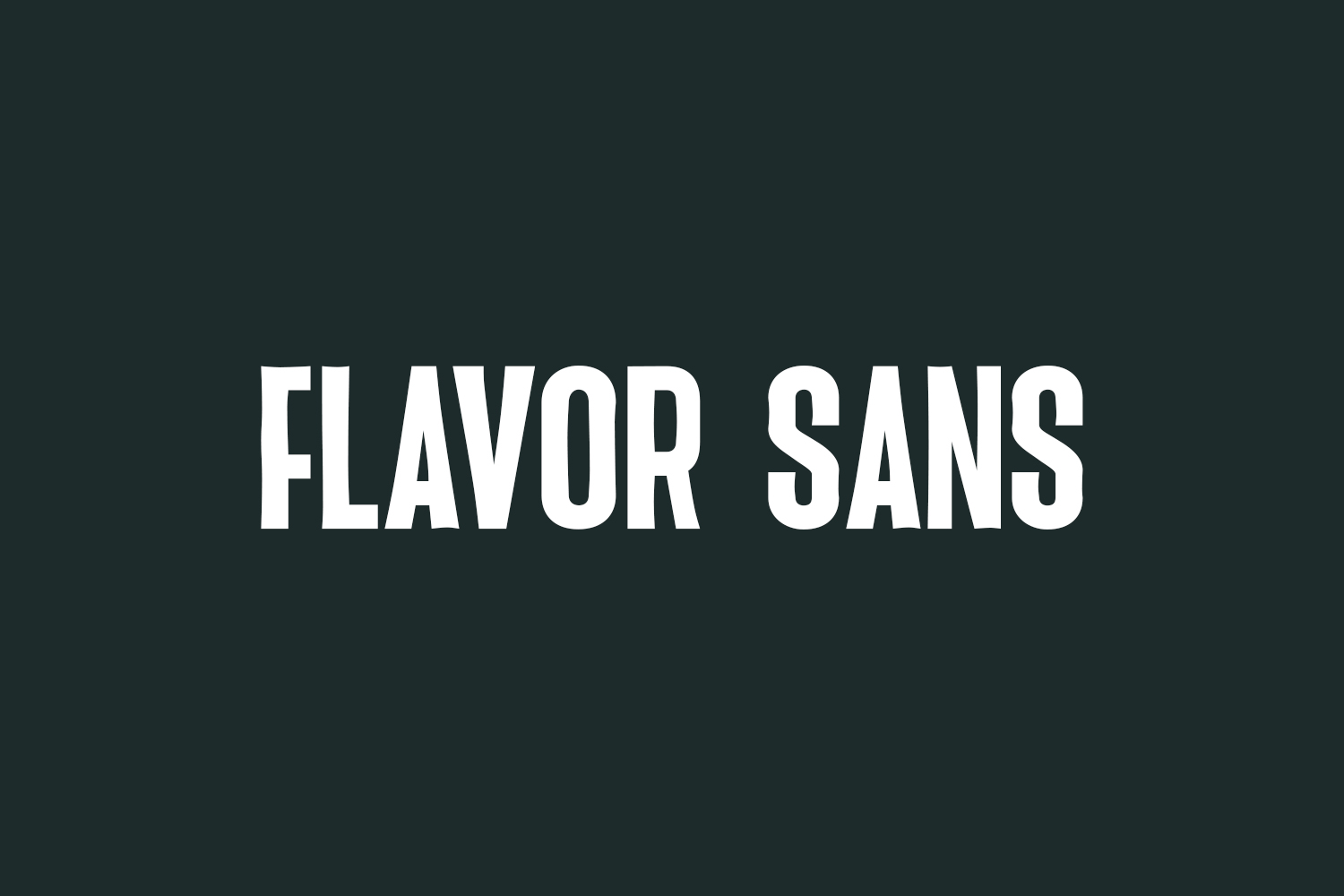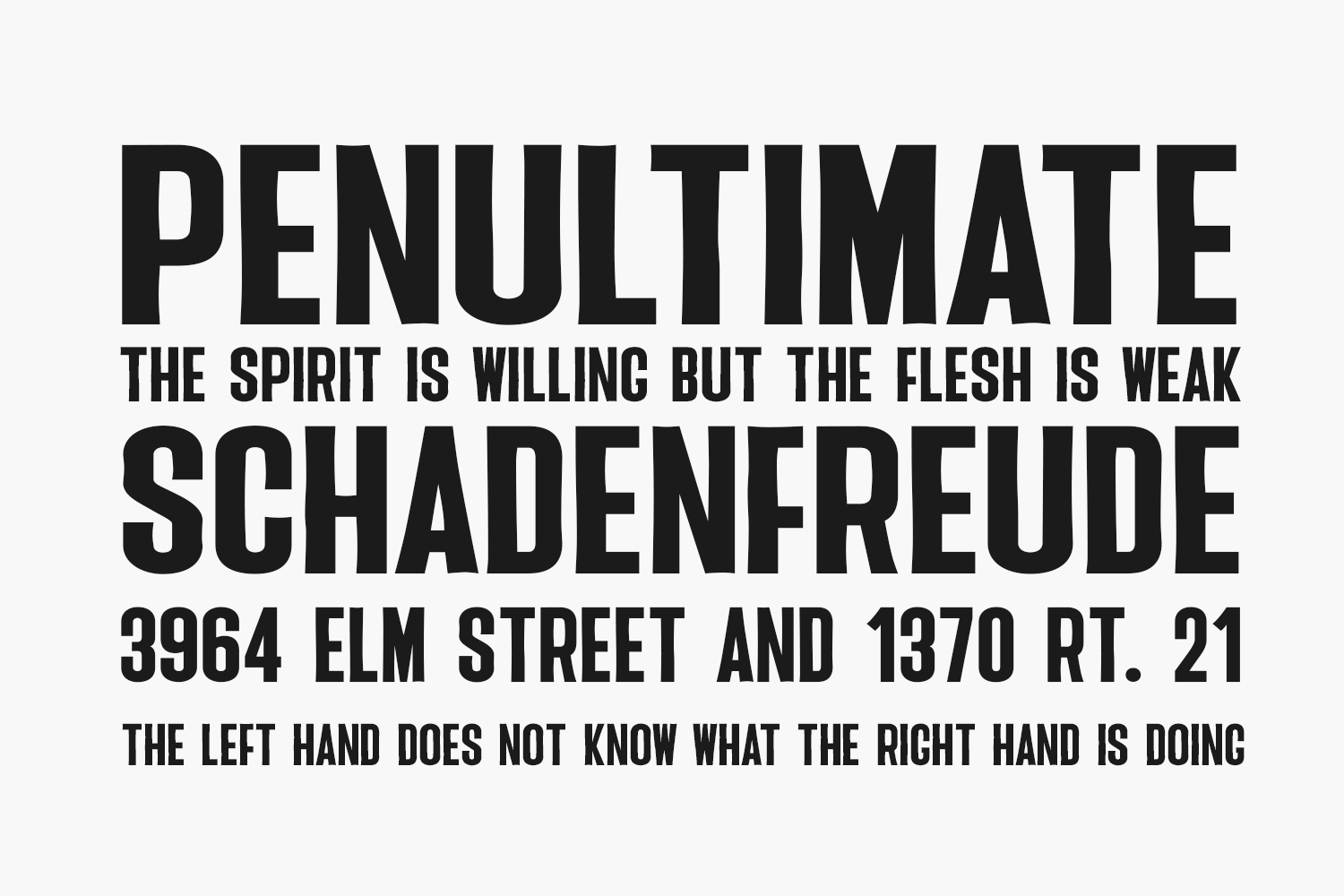
Introducing Flavor Sans Free Font, a sans serif font specially crafted for casual-themed design applications. This remarkable font stands out with its distinct shape and condensed width, offering a strong sense of authenticity.
Flavor Sans is the perfect choice for projects that require a laid-back and approachable vibe. Whether you’re working on social media graphics, website designs, packaging, or any other casual-themed design, this font will effortlessly complement your creative vision. Flavor Sans Free Font is free for personal use only. Please purchase the full version for commercial use.